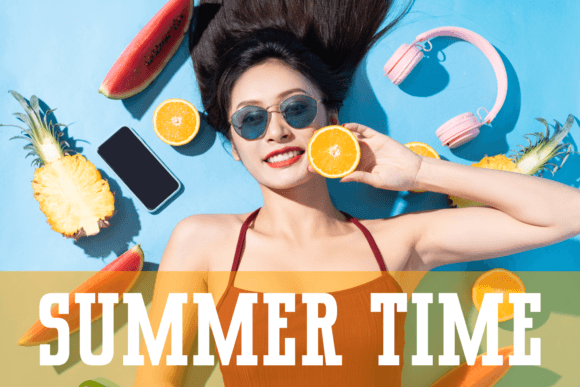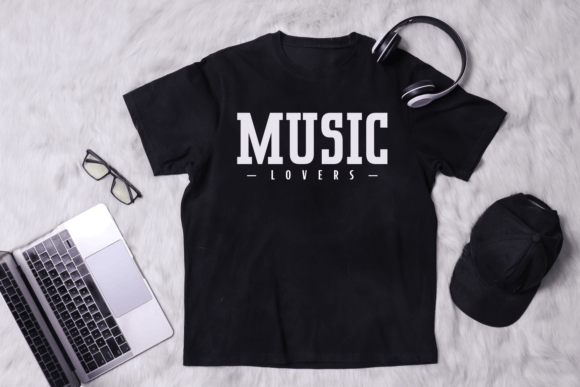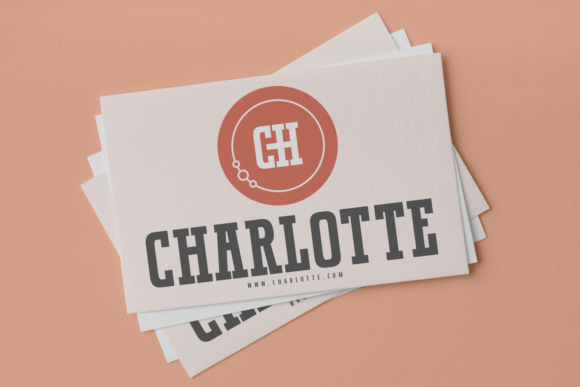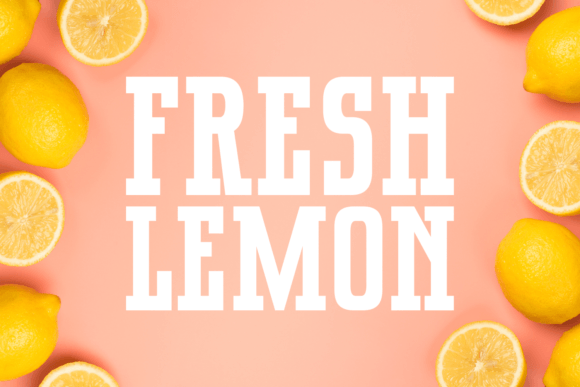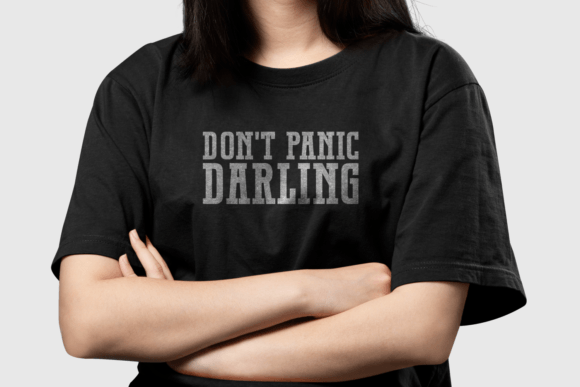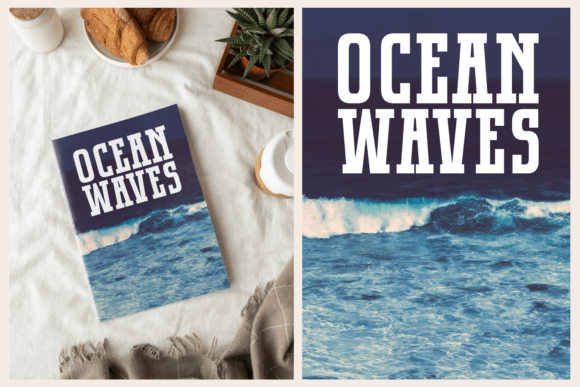
Introducing Beach Winds Font: A Timeless Slab Serif with a Modern Twist
Are you on the hunt for a font that can elevate your designs and add a touch of sophistication? Look no further than Beach Winds Font, a classic slab serif font with a subtle modern twist. This versatile font is perfect for designers and crafters who want to add a professional edge to their creations.
What is Beach Winds Font?
Beach Winds Font is a slab serif font that exudes a sense of timelessness and elegance. Its classic design makes it suitable for a wide range of projects, from branding and advertising to packaging and digital media. The font’s subtle modern twist sets it apart from more traditional slab serif fonts, giving it a fresh and contemporary feel.
Key Features of Beach Winds Font
• Classic slab serif design: Beach Winds Font features a traditional slab serif design that is both elegant and sophisticated.
• Subtle modern twist: The font’s modern twist gives it a fresh and contemporary feel that sets it apart from more traditional slab serif fonts.
• Highly versatile: Beach Winds Font can be used for a wide range of projects, from branding and advertising to packaging and digital media.
• Easy to read: The font’s clear and legible design makes it easy to read, even at small sizes.
Why Choose Beach Winds Font?
Beach Winds Font is an excellent choice for designers and crafters who want to add a professional edge to their creations. Here are just a few reasons why:
• Elevate your designs: Beach Winds Font has the potential to elevate any creation, making it perfect for designers who want to take their work to the next level.
• Add a touch of sophistication: The font’s classic design and subtle modern twist make it perfect for adding a touch of sophistication to any project.
• Stand out from the crowd: Beach Winds Font is a unique and distinctive font that will help your designs stand out from the crowd.
How to Use Beach Winds Font
Beach Winds Font is incredibly versatile and can be used for a wide range of projects. Here are just a few ideas to get you started:
• Branding and advertising: Use Beach Winds Font to create professional-looking logos, brochures, and advertisements.
• Packaging design: The font’s clear and legible design makes it perfect for packaging design, from labels to product packaging.
• Digital media: Use Beach Winds Font to create professional-looking digital media, from social media graphics to website headers.
Tips for Getting the Most Out of Beach Winds Font
Here are a few tips for getting the most out of Beach Winds Font:
• Experiment with different sizes: Beach Winds Font looks great at a wide range of sizes, from small and delicate to large and bold.
• Play with color: The font’s classic design makes it perfect for use with a wide range of colors and color schemes.
• Pair it with other fonts: Beach Winds Font pairs well with a wide range of fonts, from sans serif fonts to script fonts.
Beach Winds Font is a timeless slab serif font with a subtle modern twist that is perfect for designers and crafters who want to add a professional edge to their creations. Its classic design, highly versatile, and easy to read, making it an excellent choice for a wide range of projects. Whether you’re looking to elevate your designs, add a touch of sophistication, or stand out from the crowd, Beach Winds Font is an incredible asset to your font library.